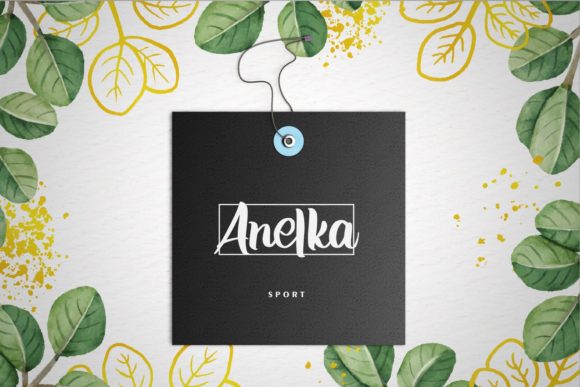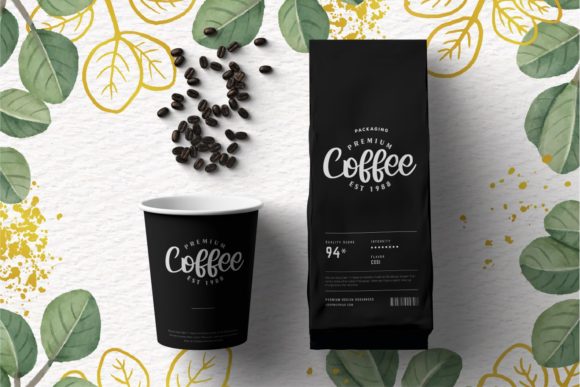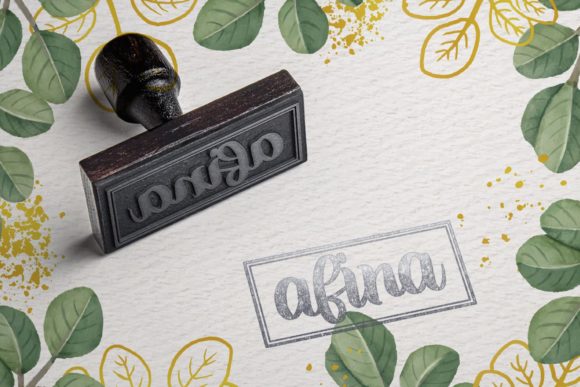
About Jelita Font
Introducing Jelita: The Bold and Brushed Handwritten Font
Meet Jelita, the font that embodies boldness and brushed elegance. With its round and wide letters, this typeface becomes the perfect canvas to enhance any design idea you wish to bring to life. Jelita’s unique charm and versatility make it a true gem for your creative endeavors.
The boldness of Jelita’s letterforms adds a powerful impact to your designs, ensuring that your message stands out with confidence and authority. Whether you’re crafting eye-catching headlines or impactful logos, this font becomes the voice that demands attention.
Its brushed handwritten style brings an organic and natural touch to your creations. Each stroke carries the beauty of handcrafted art, making your designs feel authentic and full of life.
Jelita’s round and wide letters create a sense of balance and harmony, allowing it to seamlessly blend with various design themes. From bold and contemporary to artistic and playful, this font adapts effortlessly to your vision, elevating your ideas to new heights.
As you delve into the endless possibilities of Jelita, you’ll find it to be the perfect partner for a wide array of projects. Whether it’s poster designs, merchandise branding, or social media graphics, Jelita’s bold and brushed elegance brings an invigorating and captivating touch to each piece.
So, let Jelita be the catalyst that brings your design ideas to life. Embrace its boldness and brushed charm, and watch as your creations flourish with a touch of creativity and originality. With Jelita as your go-to font, your designs will stand out and leave a lasting impression on your audience, leaving them captivated and inspired. Let Jelita be the key to unlocking the true potential of your creativity!